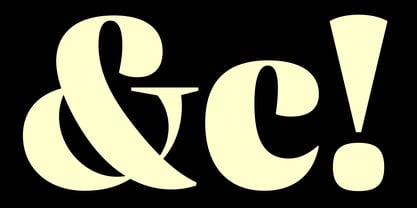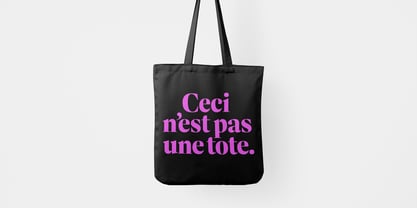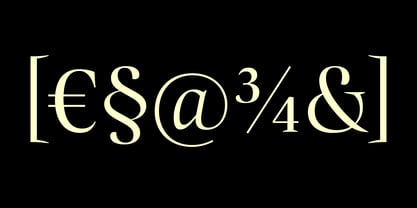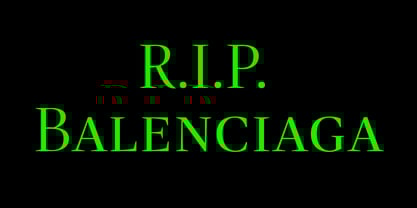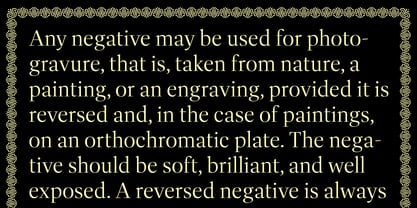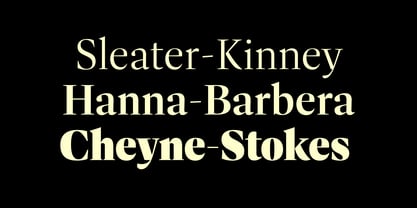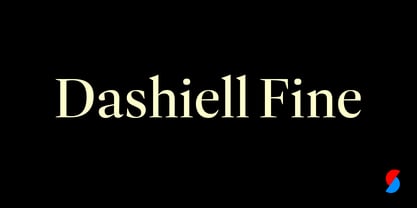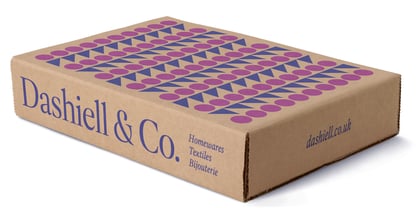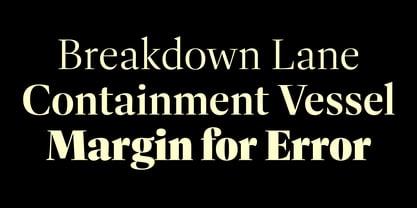
Dashiell Fine
The Dashiell Fine Font Family was designed by Max Phillips and published by Signal Type Foundry. Dashiell Fine contains 7 styles and family package options. More about this family
The dramatic contrast and wiry hairlines of Dashiell Fine are best at large sizes, where its bladelike serifs and Caslon-derived forms give it a hard-edged, Didonesque elegance. Its seven weights include an additional Light style for especially delicate work; its Black weight provides a touch of swagger. Dashiell Fine supports over 140 languages and includes lining and oldstyle figures, small caps, case-sensitive punctuation and delimiters, and a selection of borders and ornaments. It’s a natural choice for headlines to complement Dashiell Text or Bright, but equally striking on its own.